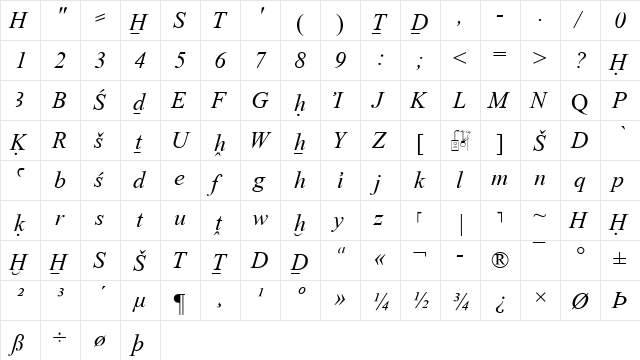
Transliteration Italic Font Preview
Transliteration Italic
Transliteration Italic Font Details
Design Context for Transliteration Typeface
Transliteration is a composed and adaptable typeface that performs quietly and consistently across a wide range of design contexts. The slanted form adds forward momentum and visual energy.
Pro Tip: Try Transliteration for annotation and caption copy alongside an upright companion — the contrast in angle creates a dynamic but ordered typographic system.